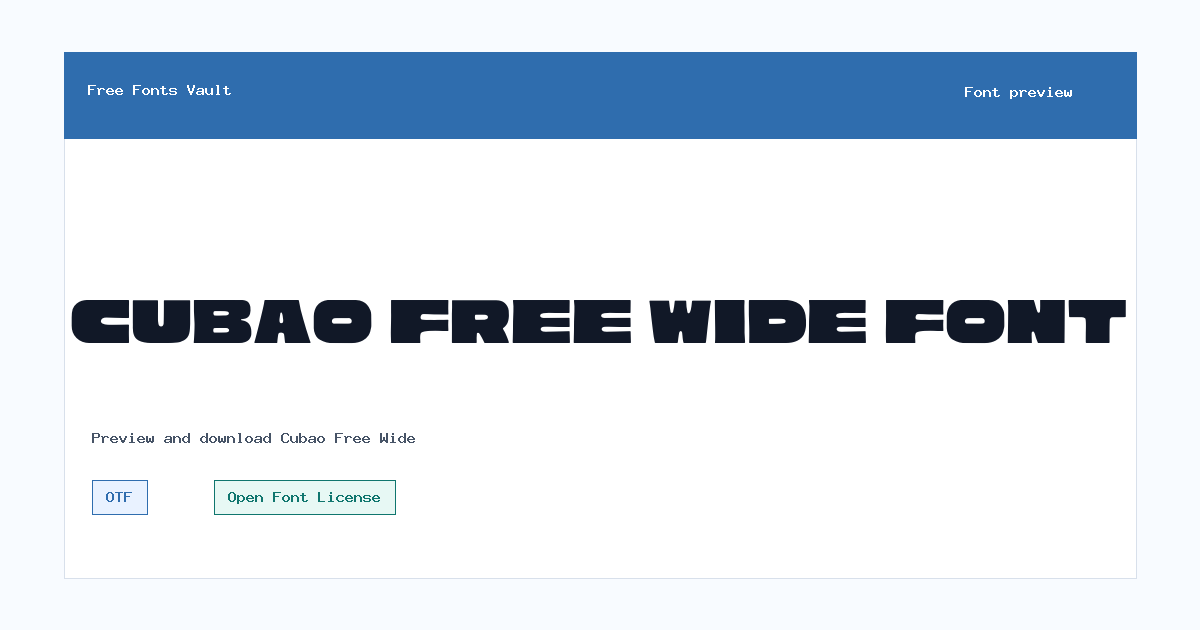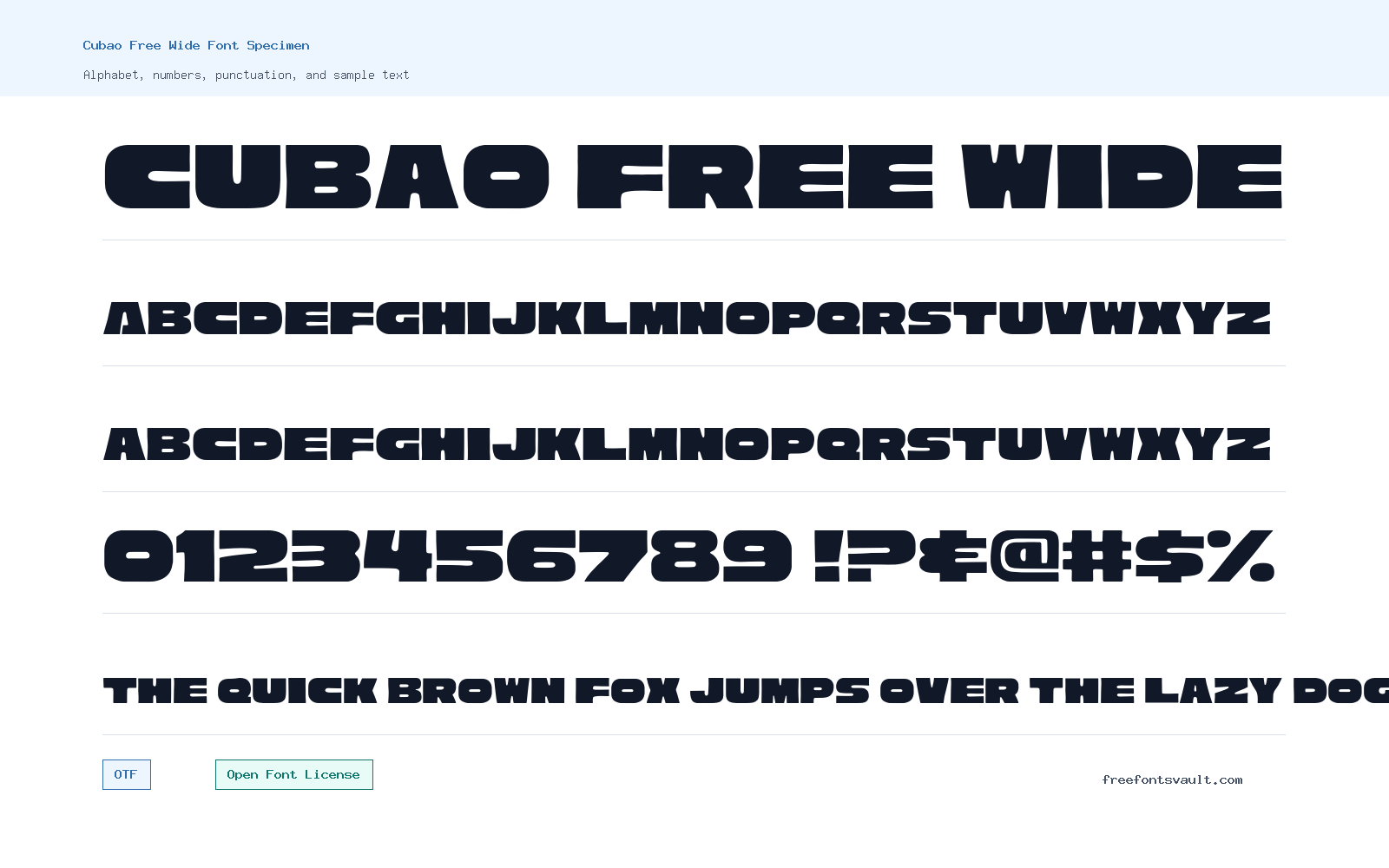
Cubao Free Wide
- Designer Aaron Amar
Cubao Free Wide font.
Cubao Free Wide is a wide display font by Aaron Amar, offered as an OTF file under the SIL Open Font License 1.1.
About Cubao Free Wide Font
Cubao Free Wide is best approached as a headline and short-text font. Its name and single wide style point toward a broad display look, so it should work better for words that need presence than for long reading paragraphs. Use the preview tool to test your exact text, especially if you plan to use all caps, tight spacing, or very short labels.
- Wide display style suited to short, high-impact text
- Created by Aaron Amar
- Posters and event graphics
- Large headings and hero titles
- Logo drafts and branding mockups
- Social media images and thumbnails
- Labels, badges, and short display text
Test spacing before using the font in finished artwork. Wide display fonts can need extra adjustment in tight layouts, small buttons, or multi-line headings. For cleaner pages, use Cubao Free Wide for the main visual text and choose a simpler companion font for paragraphs, captions, and navigation.
What is Cubao Free Wide best used for?
It is a practical choice for short display text such as posters, titles, banners, thumbnails, and logo drafts. For long paragraphs, use a more readable text font.